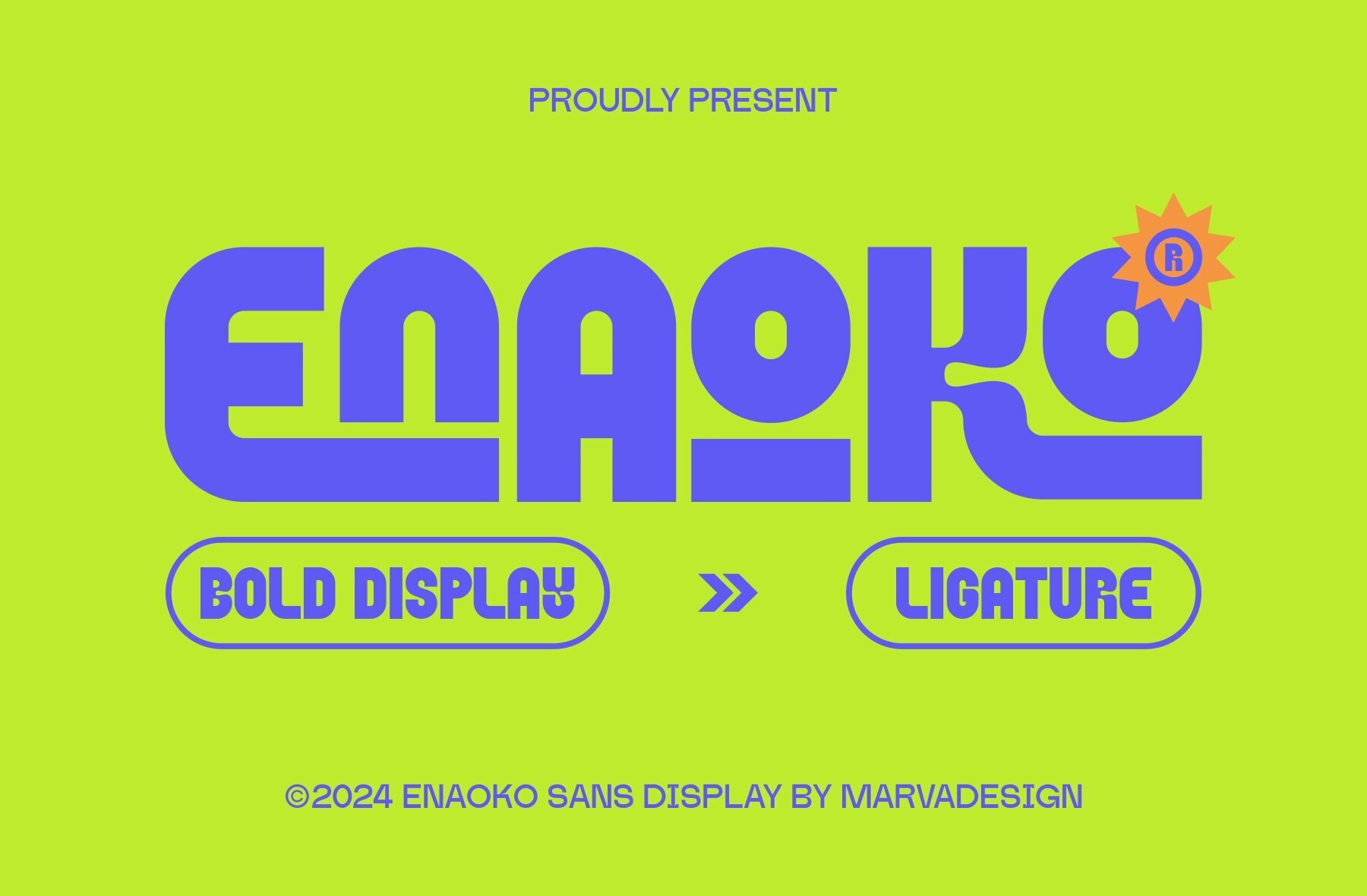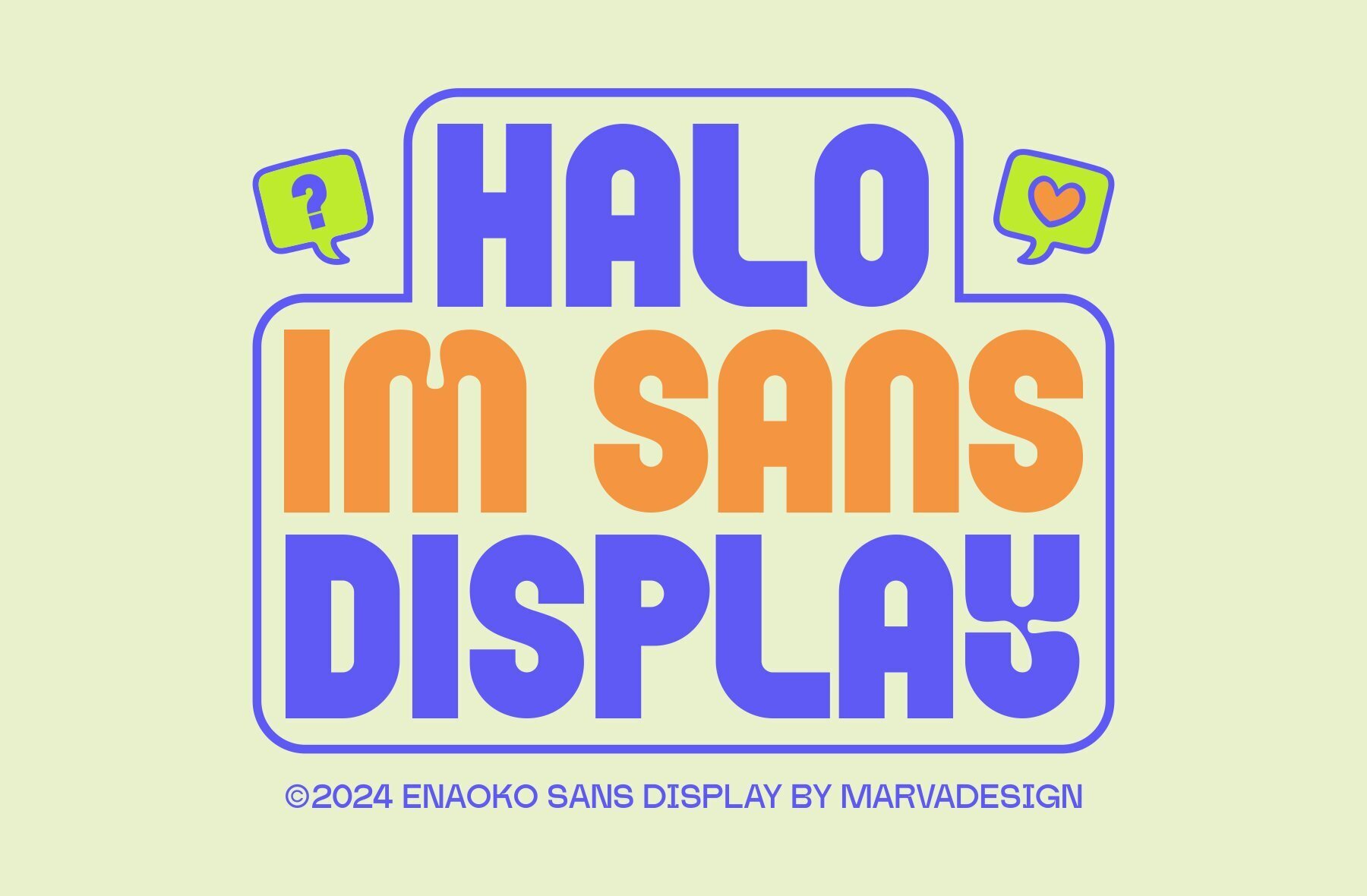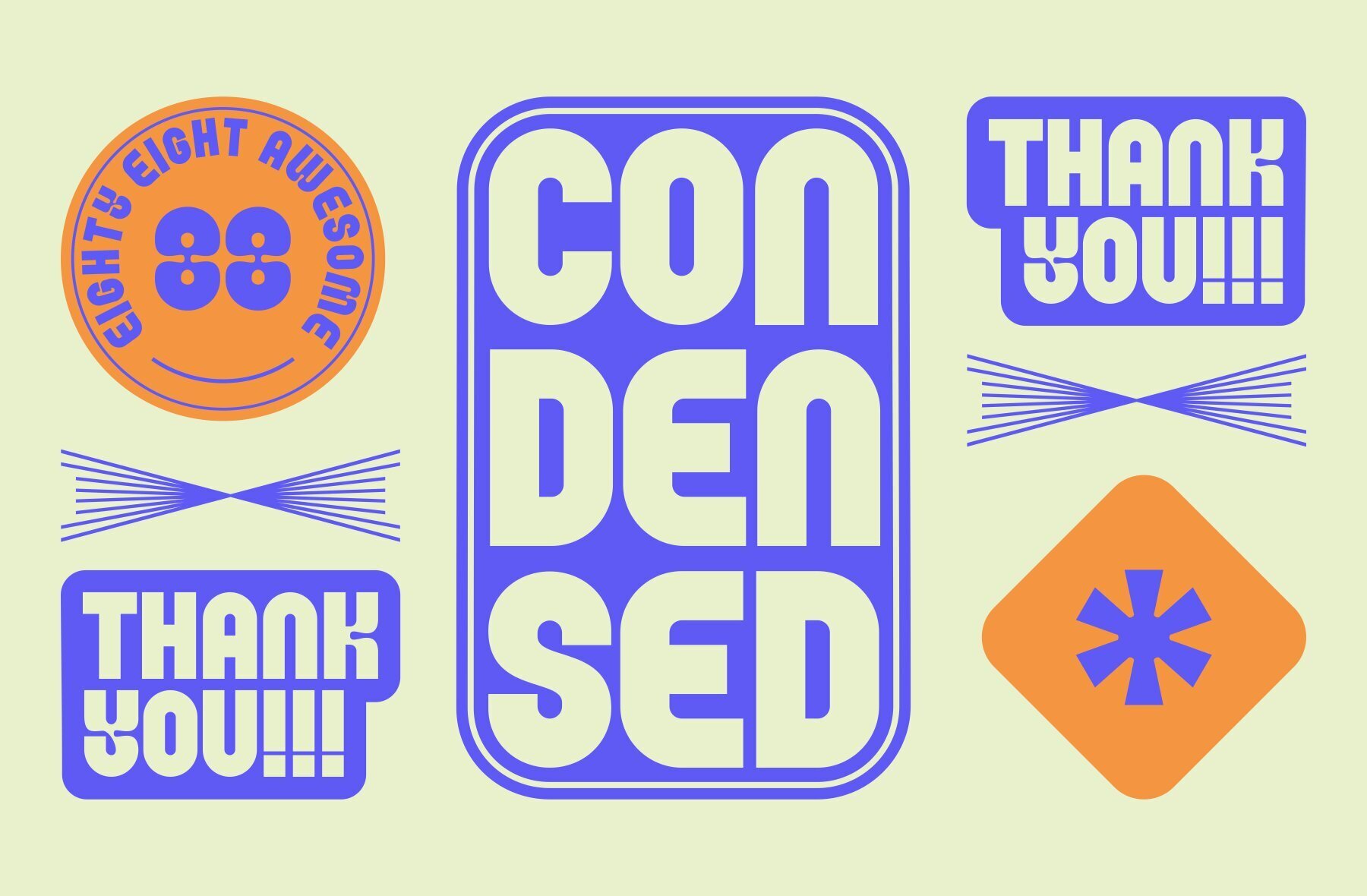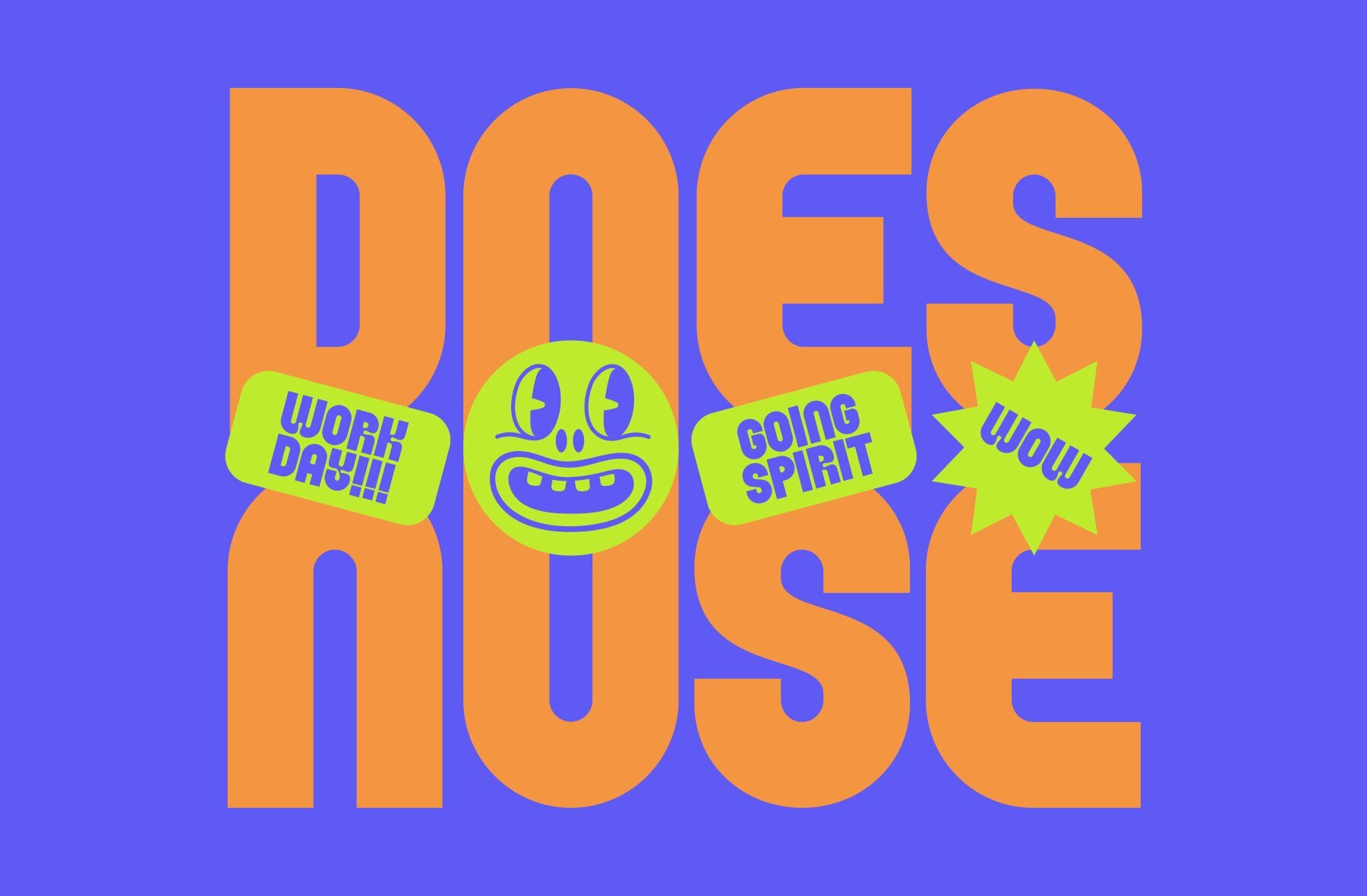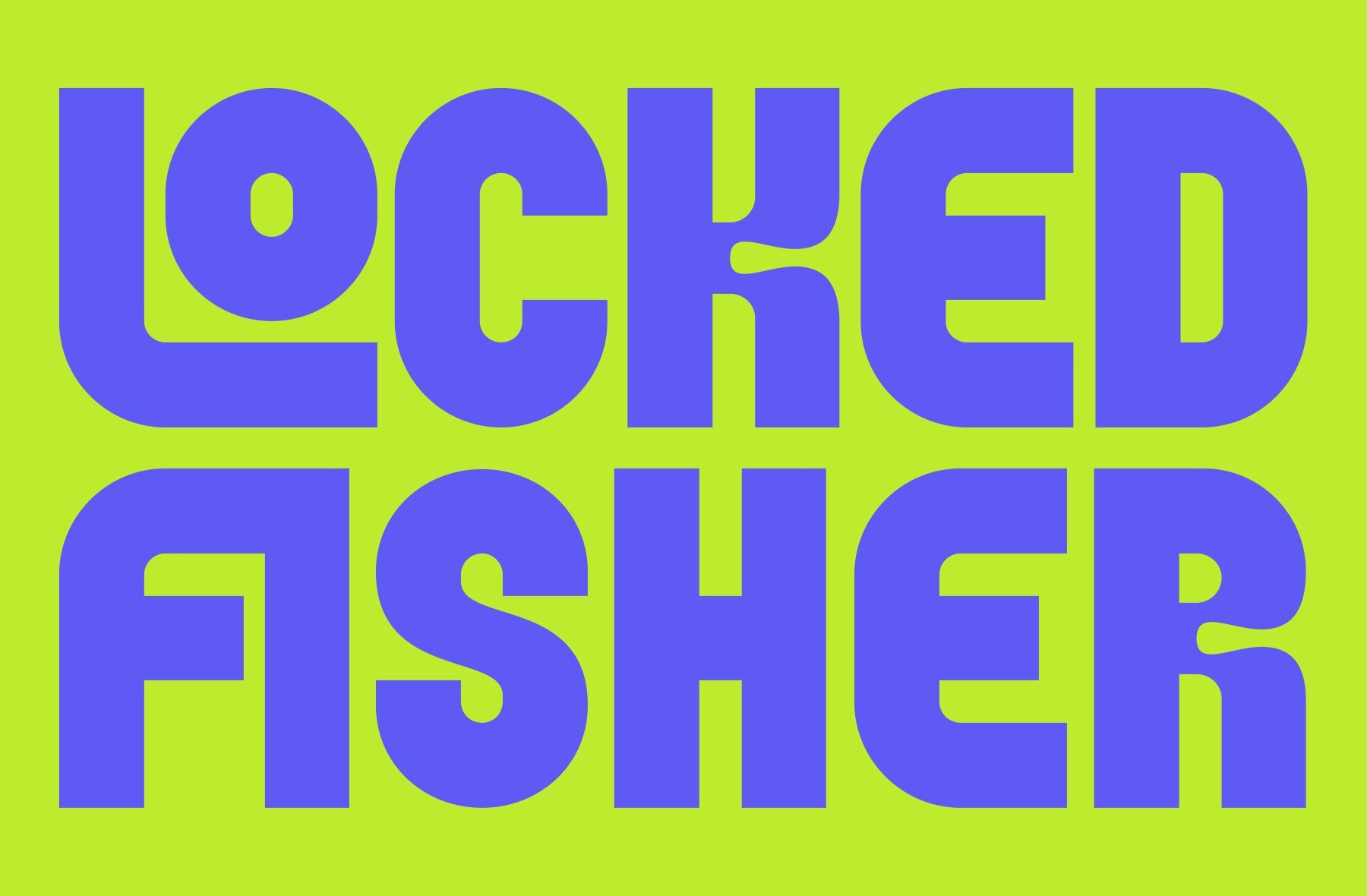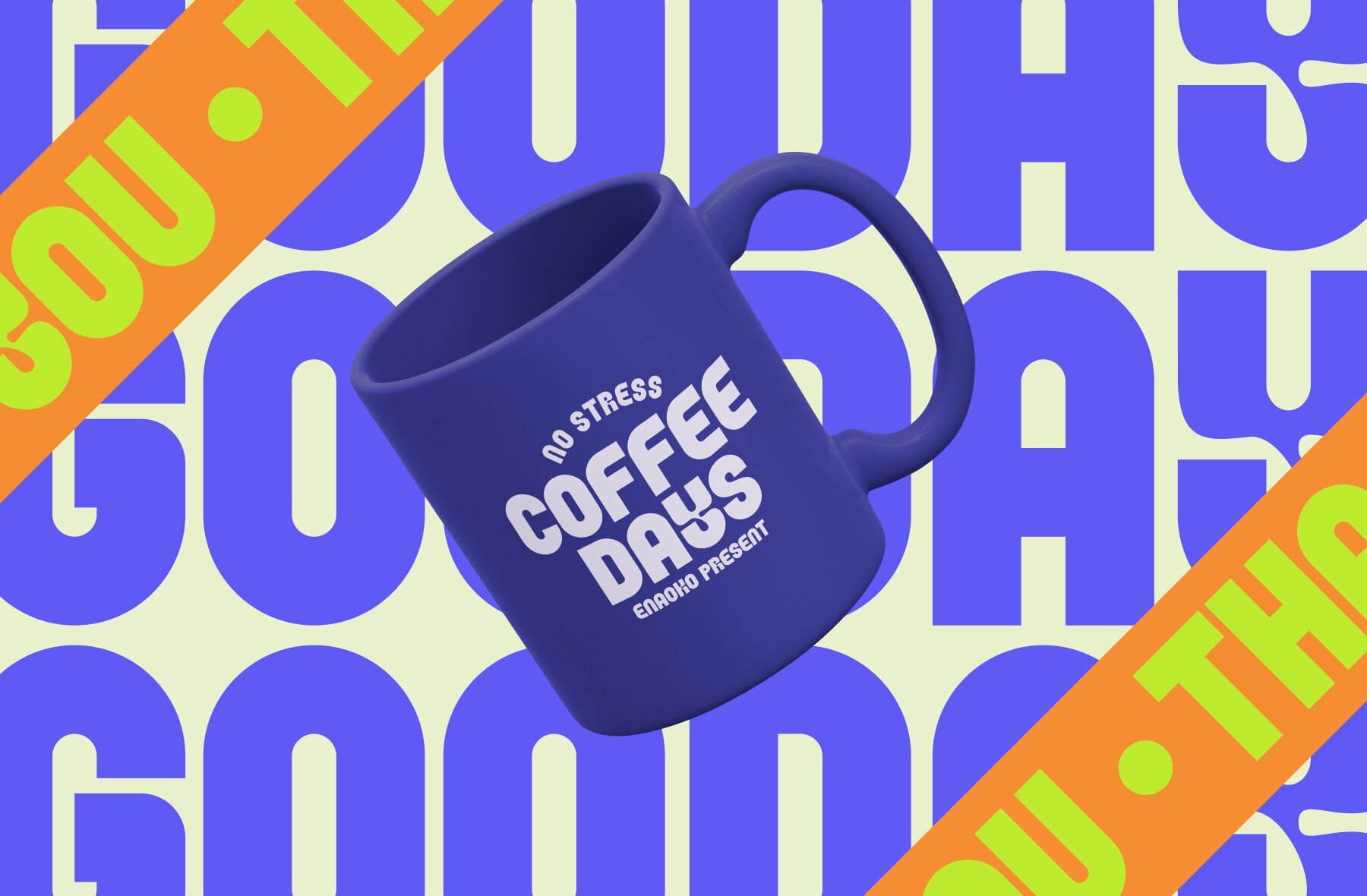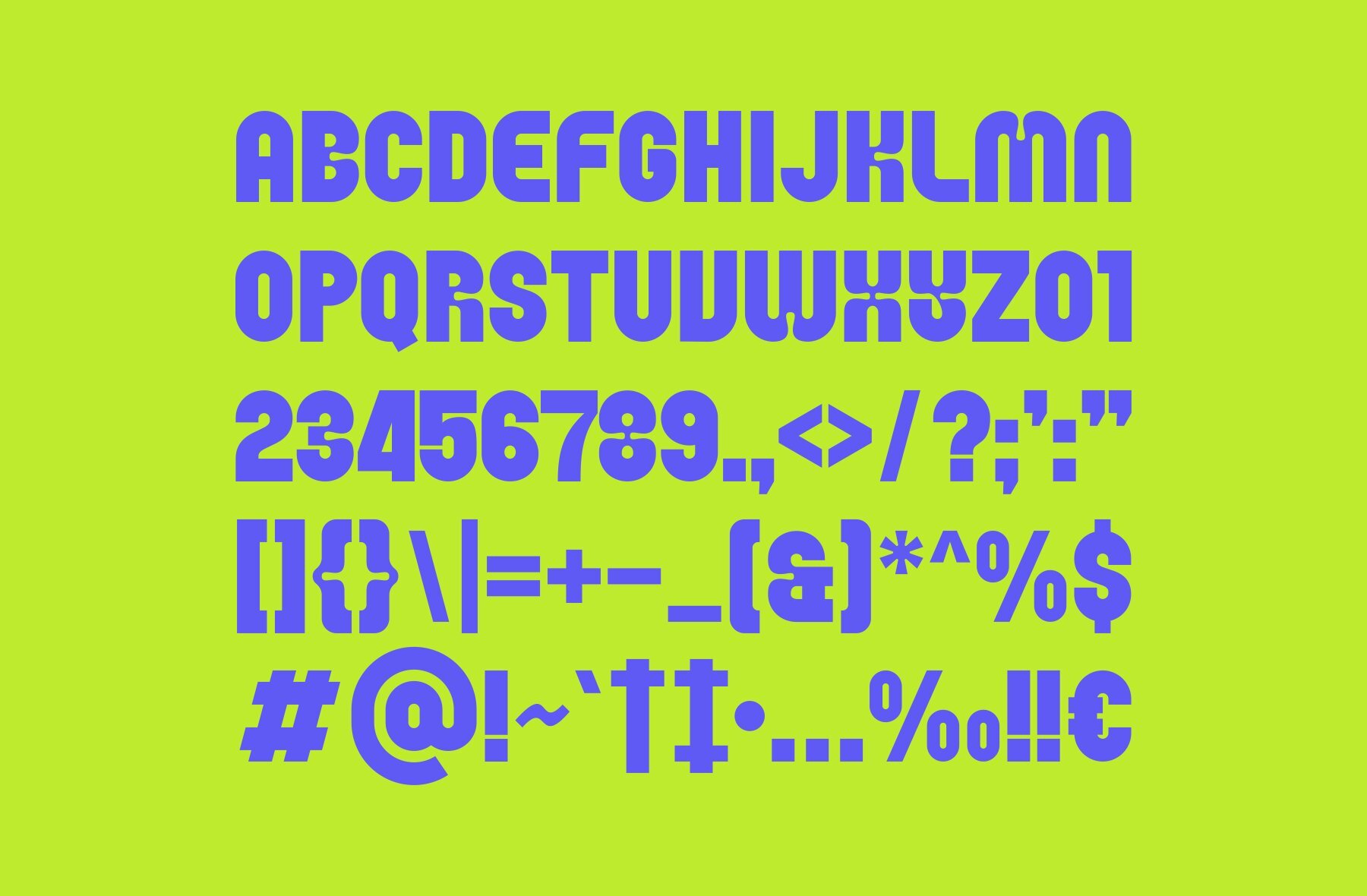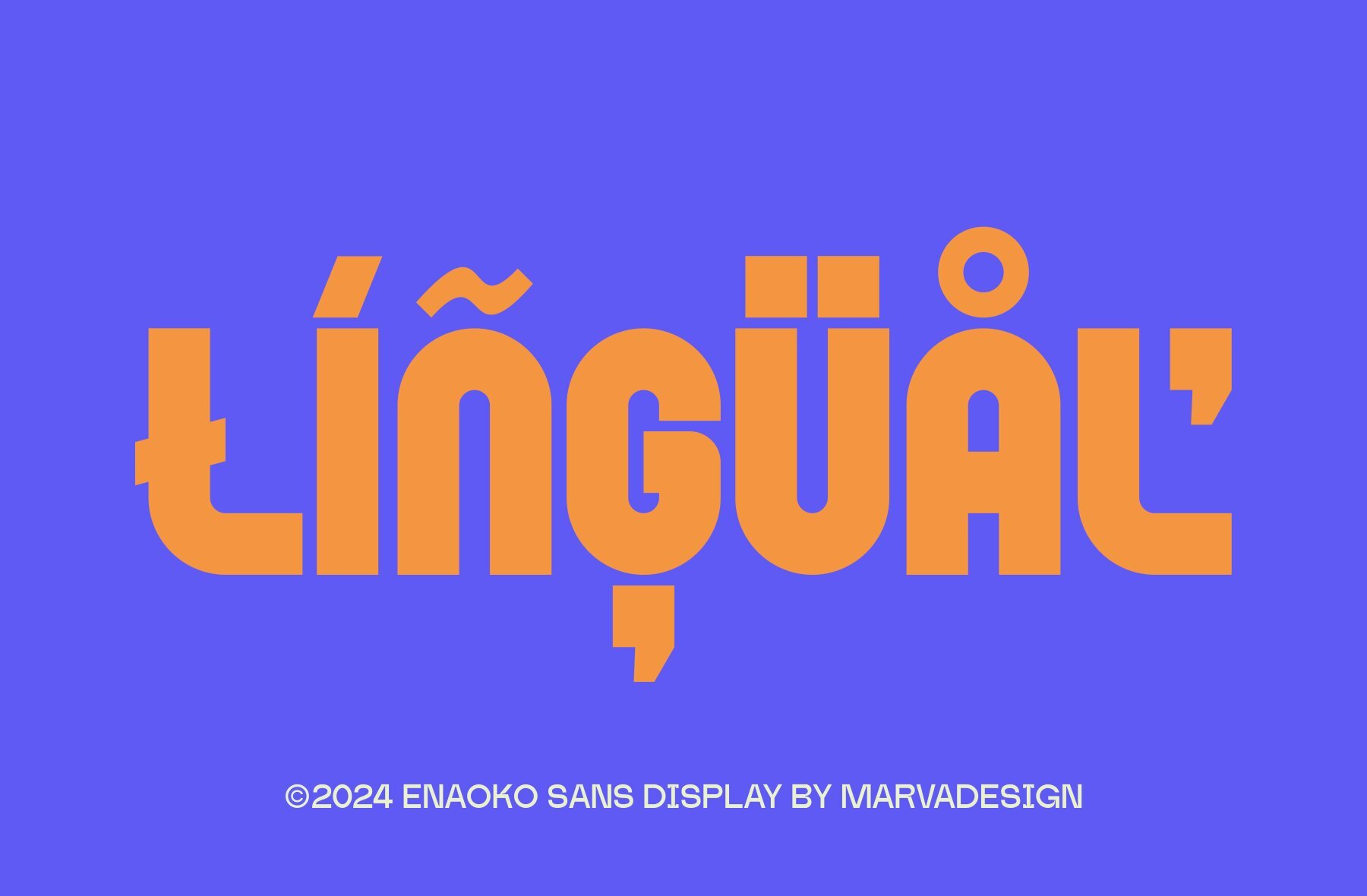
Enaoko Font
Enaoko Regular
Enaoko is a Display Sans Serif font that stands out with its bold weight, perfect for commanding attention in headings and titles. Its semi-condensed style strikes an ideal balance between compactness and readability, ensuring that your text remains clear and impactful.
Featuring various ligatures and alternate characters, Enaoko offers versatile typographic options that can enhance your creative projects. This unique combination of boldness, semi-condensed proportions, and stylistic variations makes Enaoko an exceptional choice for modern designs that seek striking and contemporary typography.